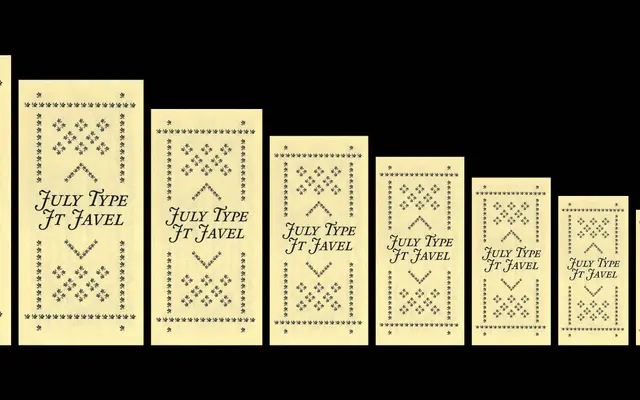
JT Javel
July Type · Ferdinand Del Fabbro
A Renaissance-influenced text serif by Ferdinand Del Fabbro, grown from a study of Robert Granjon's italics at the École Estienne in Paris.
Originating as a loose interpretation of Granjon's italics, JT Javel expanded into a full text family that balances historical craft with the demands of contemporary print and screen typography. Five weights from Regular to ExtraBold each carry a matching italic, and the family is available as a variable font spanning both weight and optical sizing. OpenType features include swashes, small caps, ligatures and multiple numeral styles for careful typographic control.
JT Javel draws directly from Renaissance type traditions, originating in a study of Robert Granjon's italics at the École Estienne in Paris, placing it firmly in the humanist/Renaissance serif subcategory.